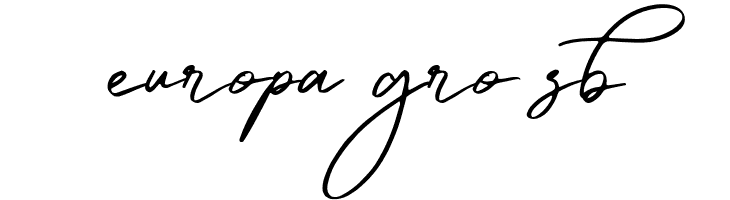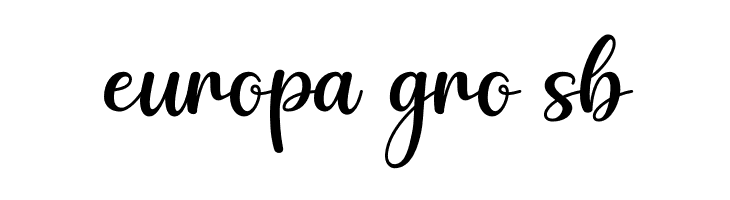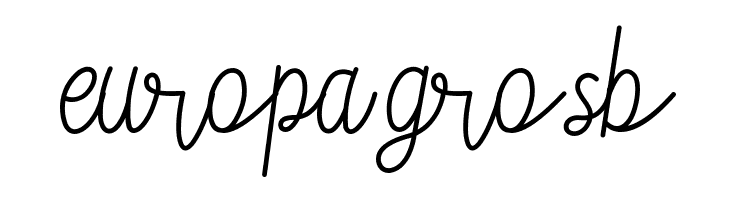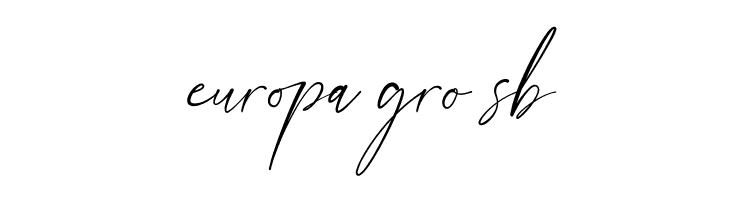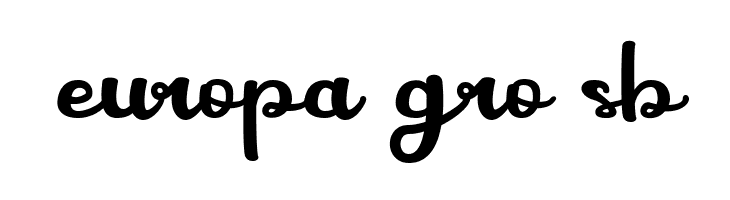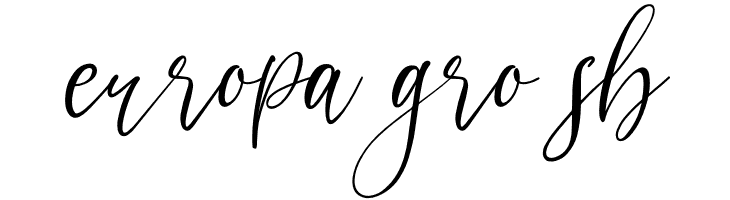
An elegant, modern script font with flowing, slender lines.
A whimsical, elegant handwritten font with playful curves and loops.
A fluid, elegant script font with a casual handwritten style.
A dynamic, expressive handwritten font with fluid cursive letterforms.
An elegant, flowing script font with smooth, cursive strokes and sophisticated loops.
A flowing, cursive font with elegant, sweeping curves and consistent stroke width.
A flowing cursive font with elegant loops and a handwritten appearance.
A fluid and elegant handwritten script with dynamic strokes and sweeping curves.
A playful, bold handwritten font with smooth curves and a casual style.
An elegant, flowing script font with smooth, cursive strokes and graceful curves.